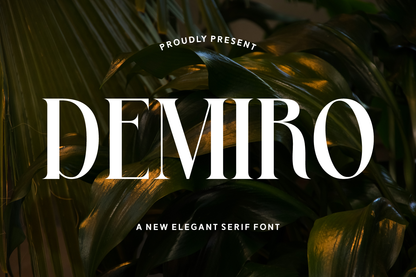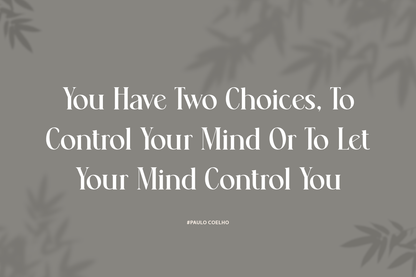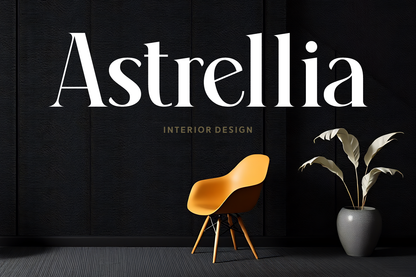
Demiro is an elegant serif font that exudes sophistication through its sleek, high-contrast letterforms. With a modern yet timeless feel, it’s perfect for upscale branding, magazine covers, fashion editorials, and luxury packaging.